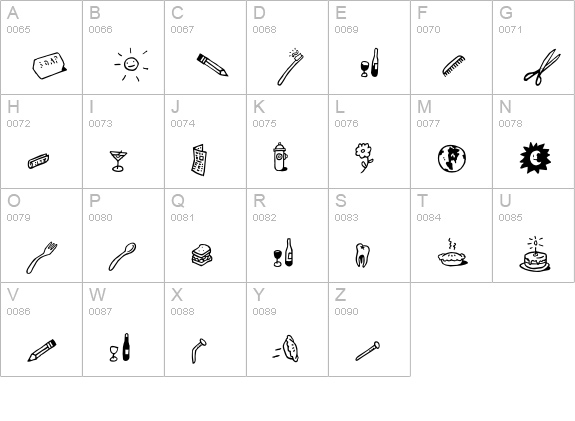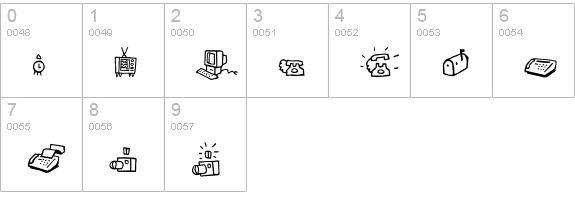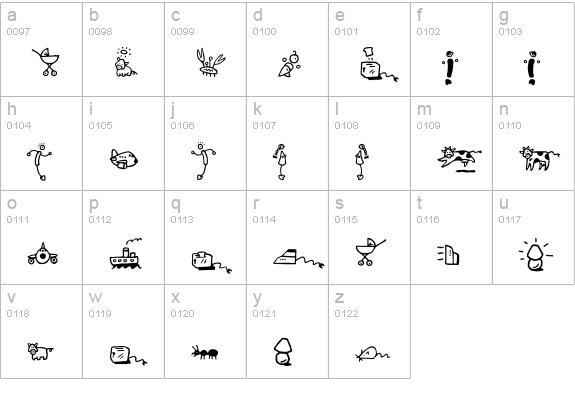
The Providence-Dingbats font is a charming and whimsical collection of decorative symbols and icons that are perfect for adding a touch of fun and creativity to your designs. This unique font features a wide range of playful characters that can be used to enhance various projects such as invitations, greeting cards, posters, and more. What makes Providence-Dingbats even more appealing is the fact that it is completely free to download at FontsMarket.com. This means that you can easily access this delightful font and incorporate its delightful elements into your designs without any cost. With its versatile and eye-catching designs, Providence-Dingbats is sure to become a favorite font for anyone looking to add a touch of flair and personality to their projects. Download it for free today and let your creativity shine with this fantastic font!